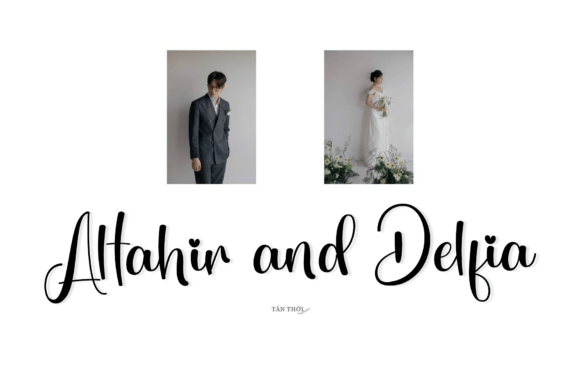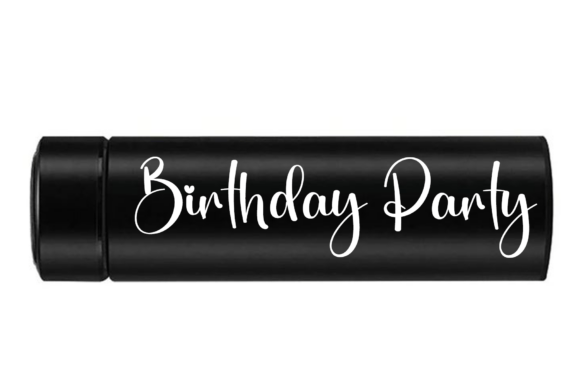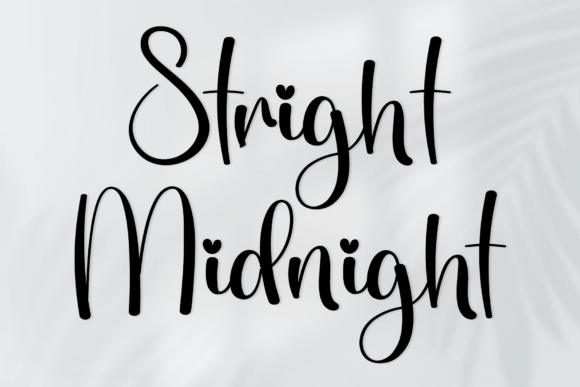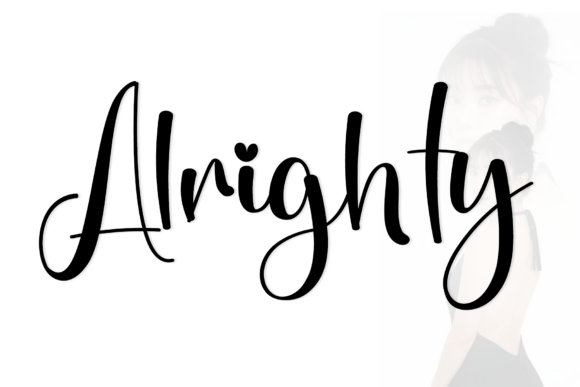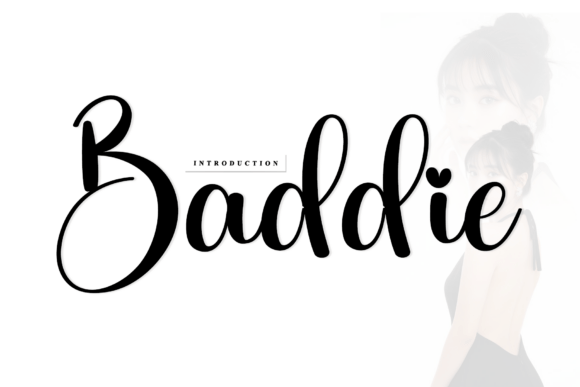
Baddie Font: Elevate Your Brand with Sophistication and Rhythm
In the world of typography, few fonts manage to strike a balance between elegance and playfulness. Baddie Font is one such exceptional script font that seamlessly blends a calligraphic style with a warm, organic aesthetic. Designed to bring a touch of sophistication and rhythm to various design projects, Baddie Font has become a premier choice for artisanal food branding, boutique product packaging, upscale lifestyle marketing, and creative editorial titles.
The Unique Charm of Baddie Font
So, what sets Baddie Font apart from other script fonts? The answer lies in its defining characteristic: the use of sweeping, looping ascenders. These fluid strokes create a sense of customized, artisanal artistry, making each word look like a piece of handcrafted art. This distinctive feature not only adds a touch of elegance but also injects a sense of playfulness and creativity into any design.
Perfect for Artisanal Branding
Artisanal food branding, boutique product packaging, and upscale lifestyle marketing require a font that exudes sophistication and uniqueness. Baddie Font fits the bill perfectly. Its calligraphic style and organic aesthetic evoke a sense of high-end quality, making it ideal for brands that want to stand out in a crowded market. Whether you’re designing a label for a small-batch jam or a logo for a boutique clothing store, Baddie Font is sure to make a lasting impression.
Creative Editorial Titles and More
Baddie Font is not just limited to branding and packaging. Its versatility makes it an excellent choice for creative editorial titles, such as magazine covers, blog headers, and even book titles. The font’s rhythmic flow and elegant loops add a touch of sophistication to any editorial design, making it perfect for publications that want to stand out on the newsstand or online.
Why Designers and Crafters Love Baddie Font
Designers and crafters alike adore Baddie Font for its unique blend of style and versatility. Here are just a few reasons why:
- Unique and eye-catching: Baddie Font’s sweeping ascenders and calligraphic style make it a standout in any design.
- Versatile: From branding and packaging to editorial design, Baddie Font can be used in a wide range of projects.
- Elegant and sophisticated: Baddie Font exudes high-end quality, making it perfect for luxury brands and upscale designs.
- Easy to read: Despite its ornate style, Baddie Font is surprisingly easy to read, making it perfect for body text and headlines.
Tips for Using Baddie Font
To get the most out of Baddie Font, here are a few tips to keep in mind:
- Use it sparingly: Baddie Font is a statement font, so use it sparingly to avoid overwhelming your design.
- Pair it with a neutral font: Pair Baddie Font with a neutral font, such as a sans-serif or serif font, to create visual interest and balance.
- Experiment with colors: Baddie Font looks stunning in a range of colors, from rich jewel tones to soft pastels.
Baddie Font is a sophisticated and rhythmic script font that is sure to elevate any design project. Its unique blend of calligraphic style and organic aesthetic makes it perfect for artisanal food branding, boutique product packaging, upscale lifestyle marketing, and creative editorial titles. With its versatility, elegance, and playfulness, Baddie Font is a must-have for designers and crafters looking to add a touch of sophistication to their work.